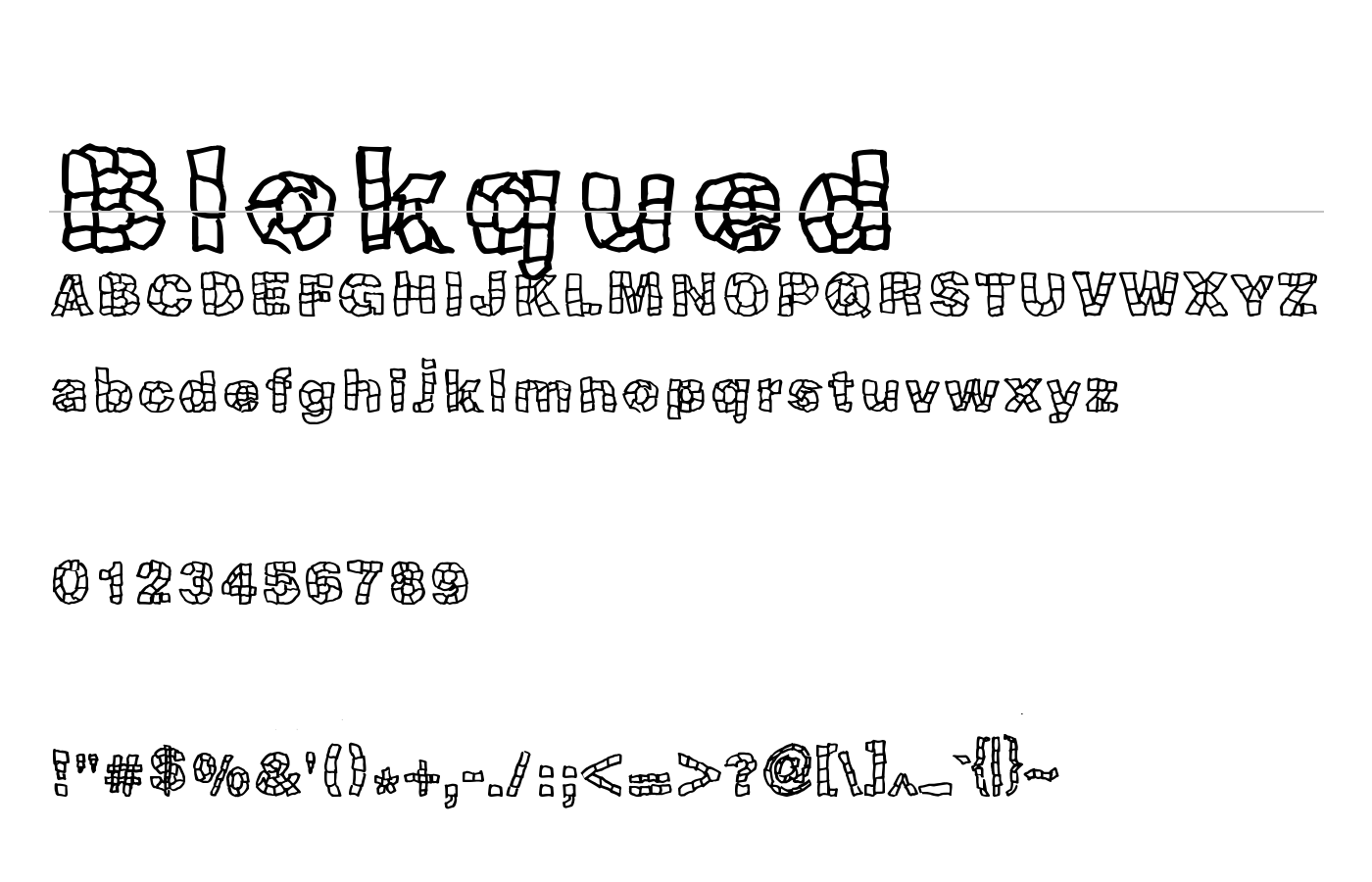
Blokqued is a playful, hand-drawn sans serif font characterized by its blocky, textured letterforms that resemble cracked or fragmented surfaces. Its irregular strokes and unique stencil-like pattern give it a casual, artistic feel perfect for creative projects, posters, and branding that seek a bold, unconventional look. This font works well in display settings where a quirky, handcrafted vibe is desired, making it distinct and eye-catching.
Blokqued Font
About Blokqued Font
| Font family | Blokqued Font |
| Designer | Max Infeld - Xerographer Fonts |